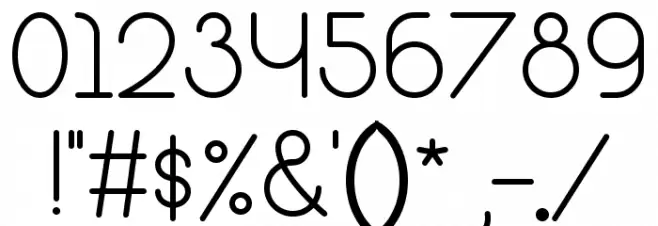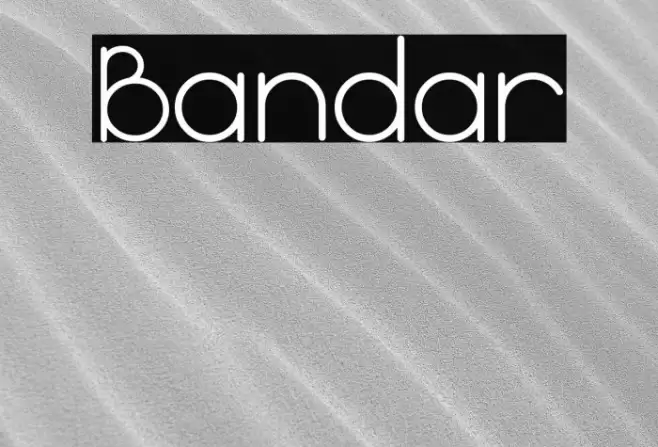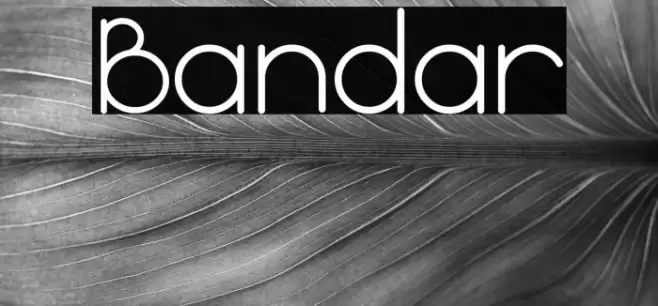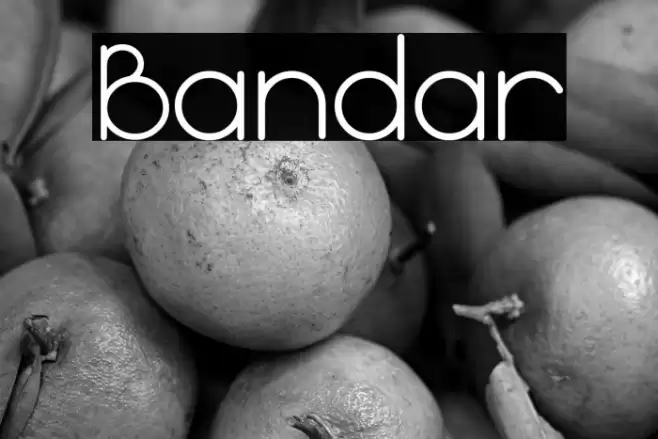
Bandar Font
This font features a modern and clean design with rounded edges and a geometric structure. The characters are evenly spaced, providing a harmonious and balanced appearance. The uppercase letters maintain a consistent height, while the lowercase letters have a slightly playful curve, adding a touch of friendliness. The numerals are clear and legible, making them suitable for various applications. Special characters are well-integrated, maintaining the overall aesthetic of the font. The uniform stroke width across all characters gives it a cohesive look, making it versatile for both digital and print media.
A modern, rounded font with geometric structure and consistent stroke width.
- Proposed Projects: Ideal for branding, digital interfaces, advertising, and editorial design.